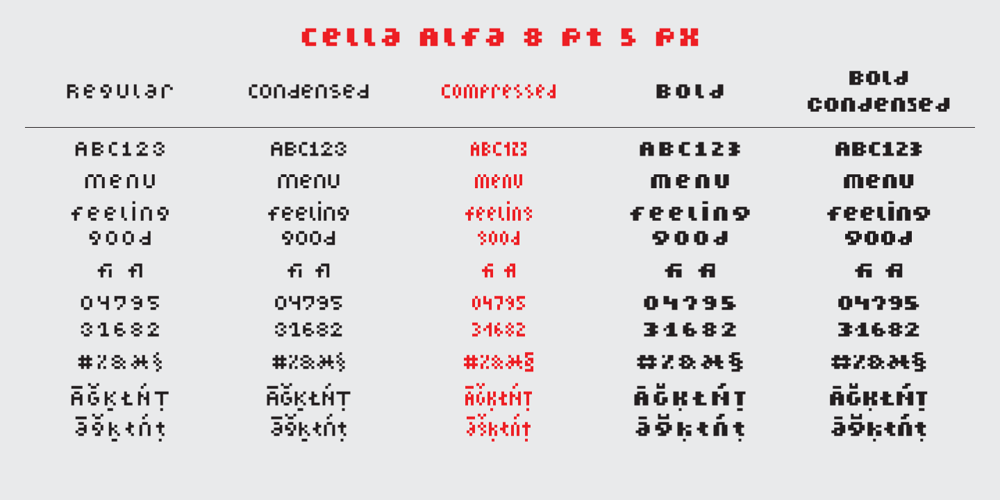
Cella Alfa
Cella Alfa font
Cella Alfa Font Family was designed by Robert Kravjanszki and published by Font HU. Cella Alfa contains 23 styles and family package options. Designed for a 72 dpi environment (web, Flash, etc.). Nomen est omen, the first number of the name is the recommended font size, the second number is the pixel height of the body.